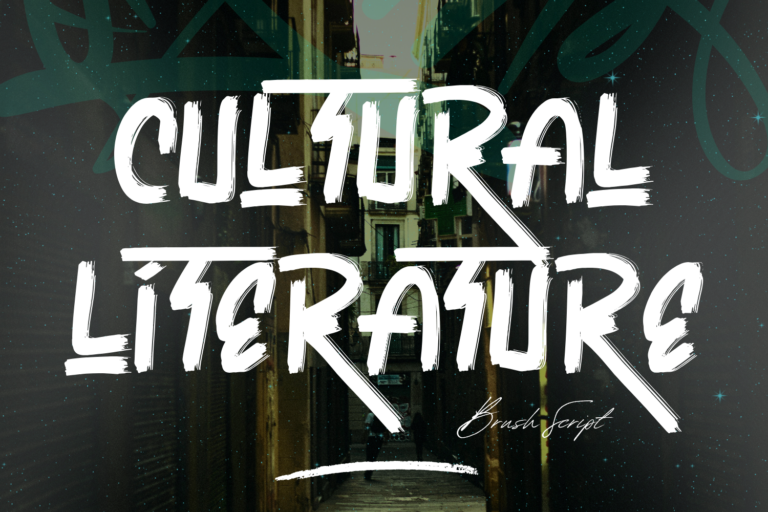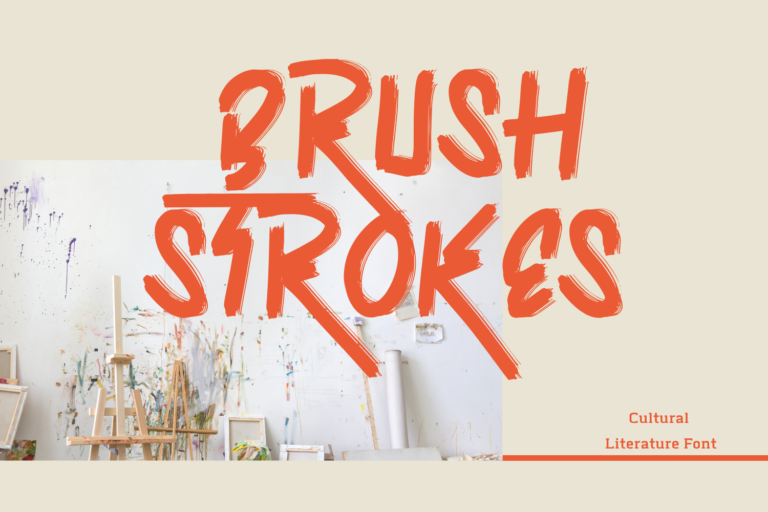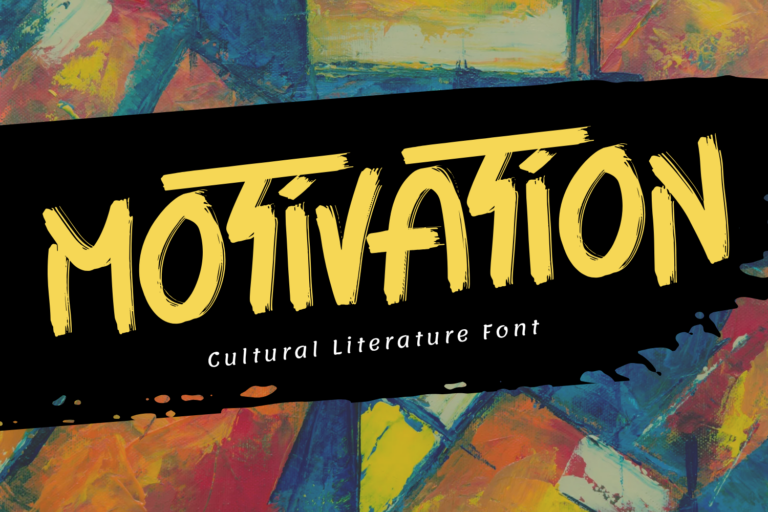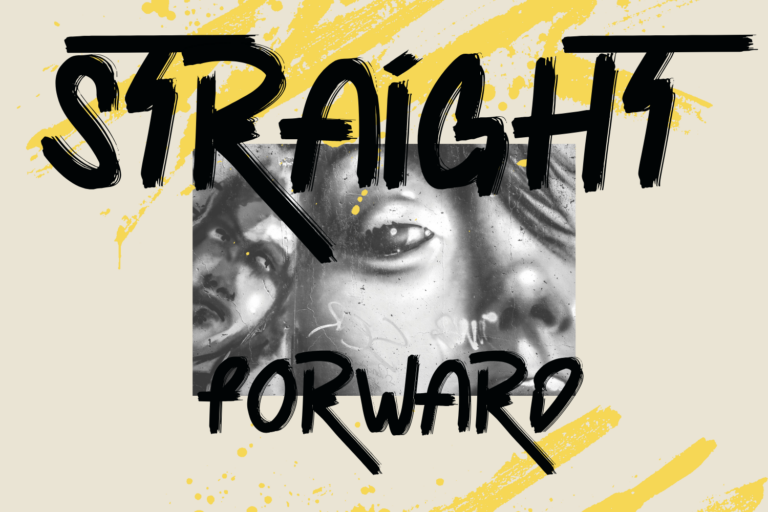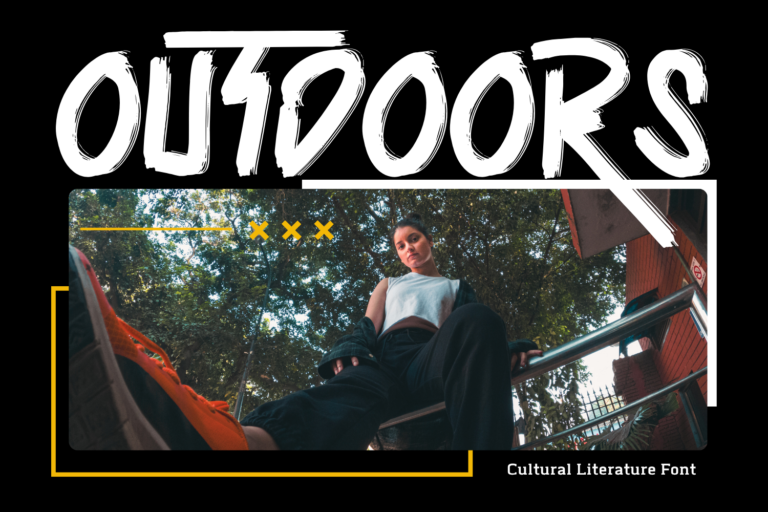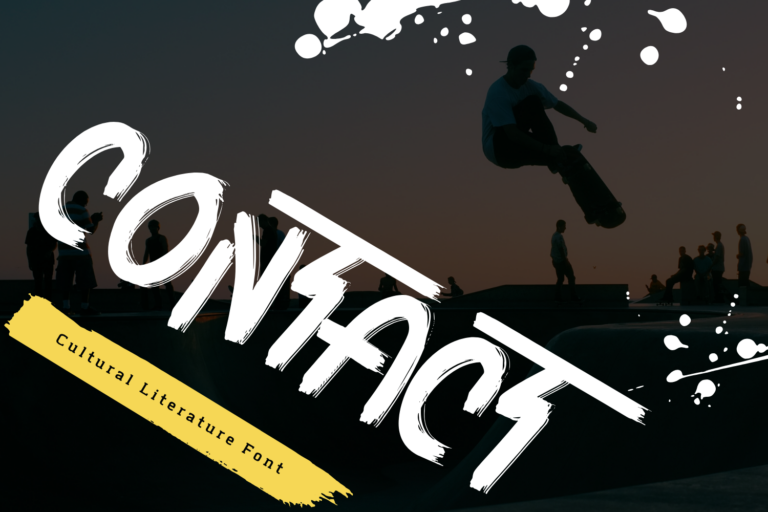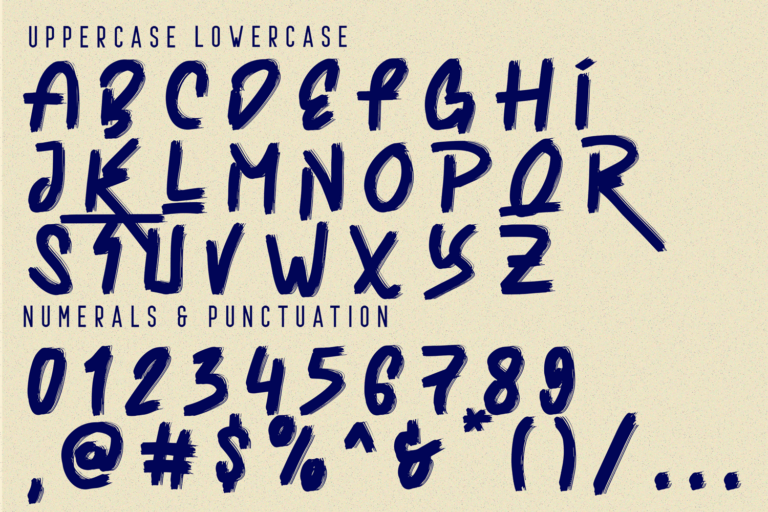
Cultural Literature Brush Font is a high-voltage brush script font that electrifies your typography with a raw, urban edge. Designed with bold, aggressive strokes and stylized lightning bolt elements, this font captures the rebellious spirit of street art and cultural expression. The sharp diagonal lines, textured brush details, and powerful motion make it perfect for music covers, poster art, skateboard brands, and modern apparel.
• Uppercase
• Multilingual Support with Accented Characters
• Handcrafted brush strokes with clean vector quality
• Built-in alternates and underlines for dramatic composition
Cultural Literature Brush Font